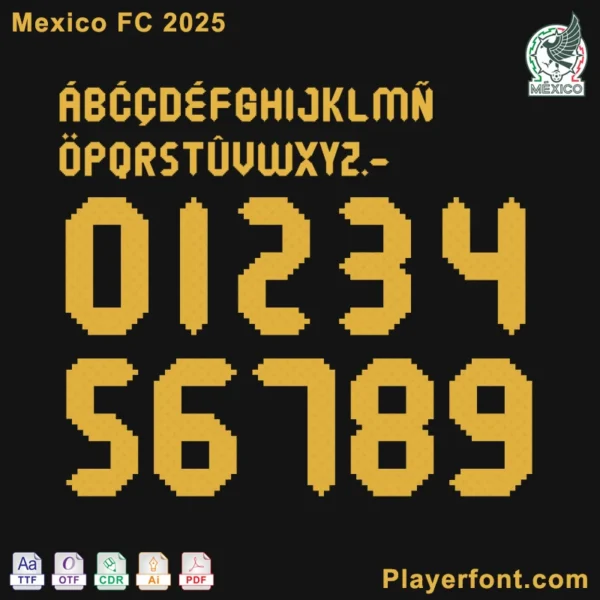
Elevate your design projects with the Adidas Mexico 2025 Font, a sleek and modern typeface inspired by the iconic Adidas branding and the vibrant spirit of Mexico. This premium font package includes TTF, OTF, CDR, and PDF vector files, making it a versatile choice for graphic designers, typographers, and creatives. Whether you’re crafting sports apparel mockups, branding materials, or promotional artwork, this font delivers bold, dynamic style with professional-grade quality.
Celebrate the fusion of Adidas’ global legacy and Mexico’s rich cultural flair with this exclusive 2025 font release. Ideal for creating jerseys, logos, posters, and more. Download now and start designing with a typeface that stands out!